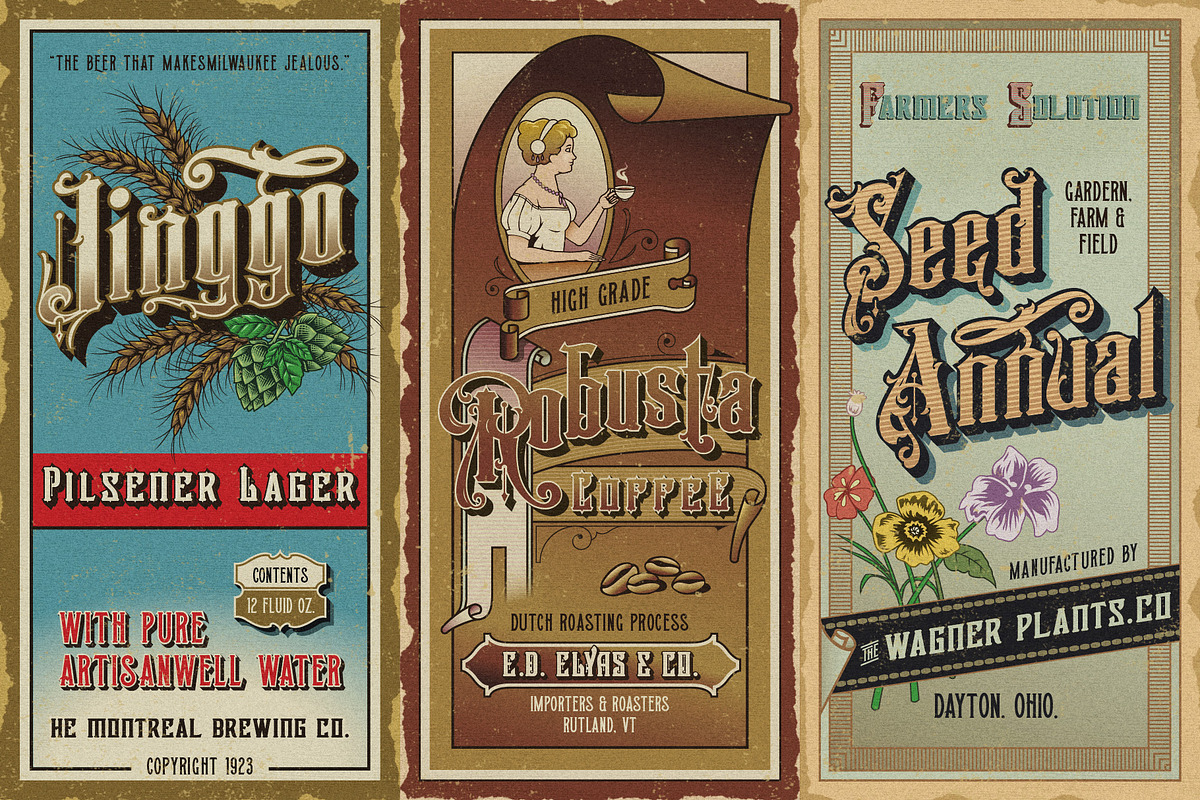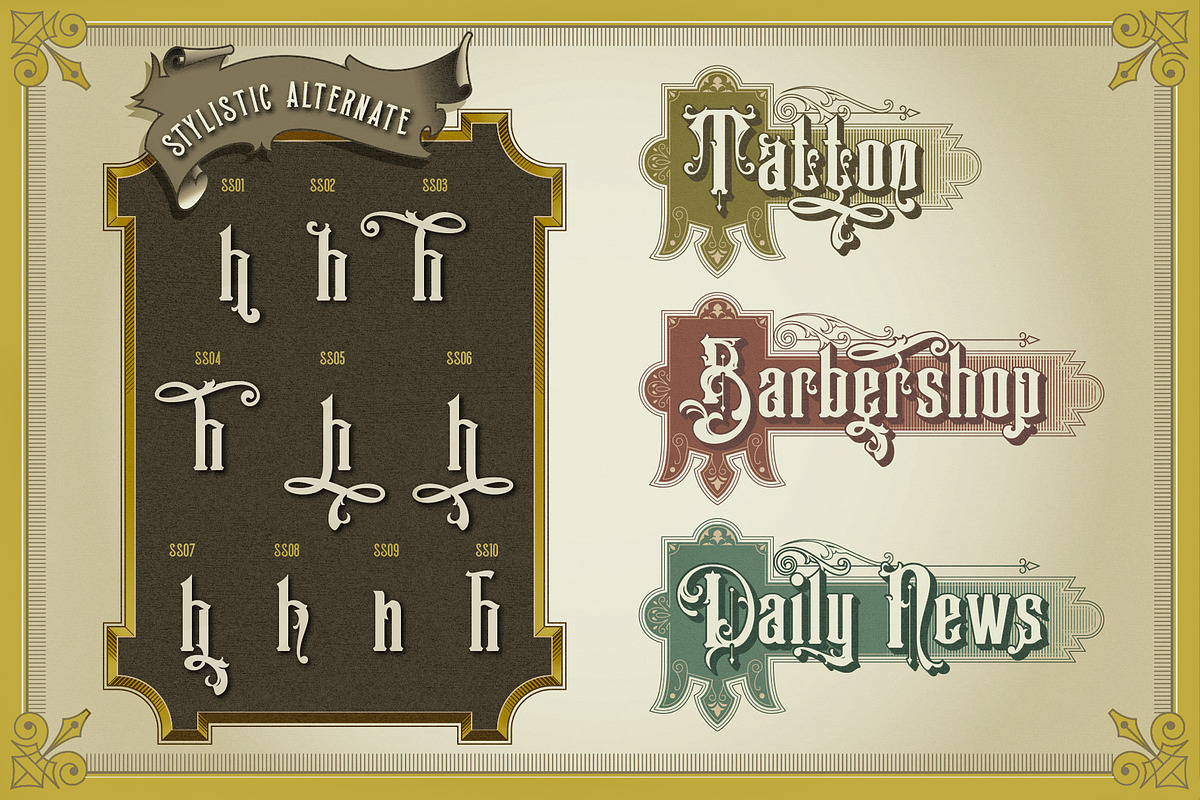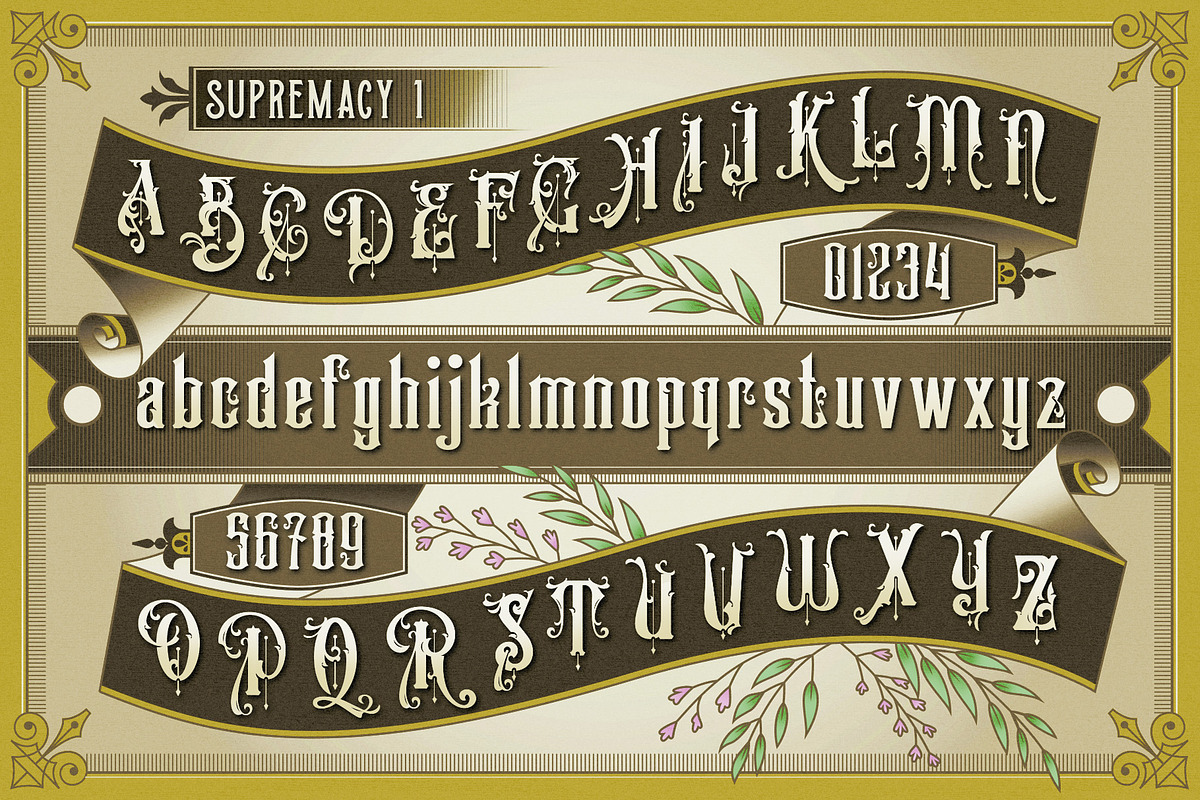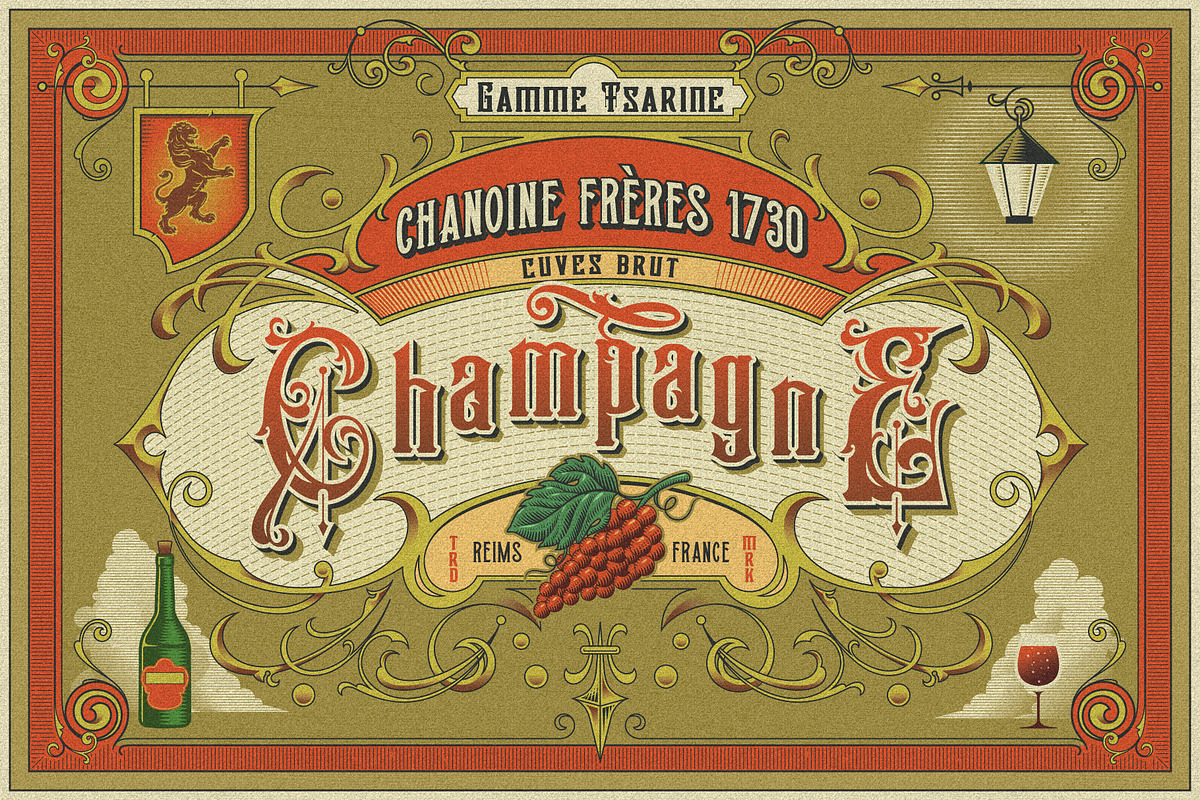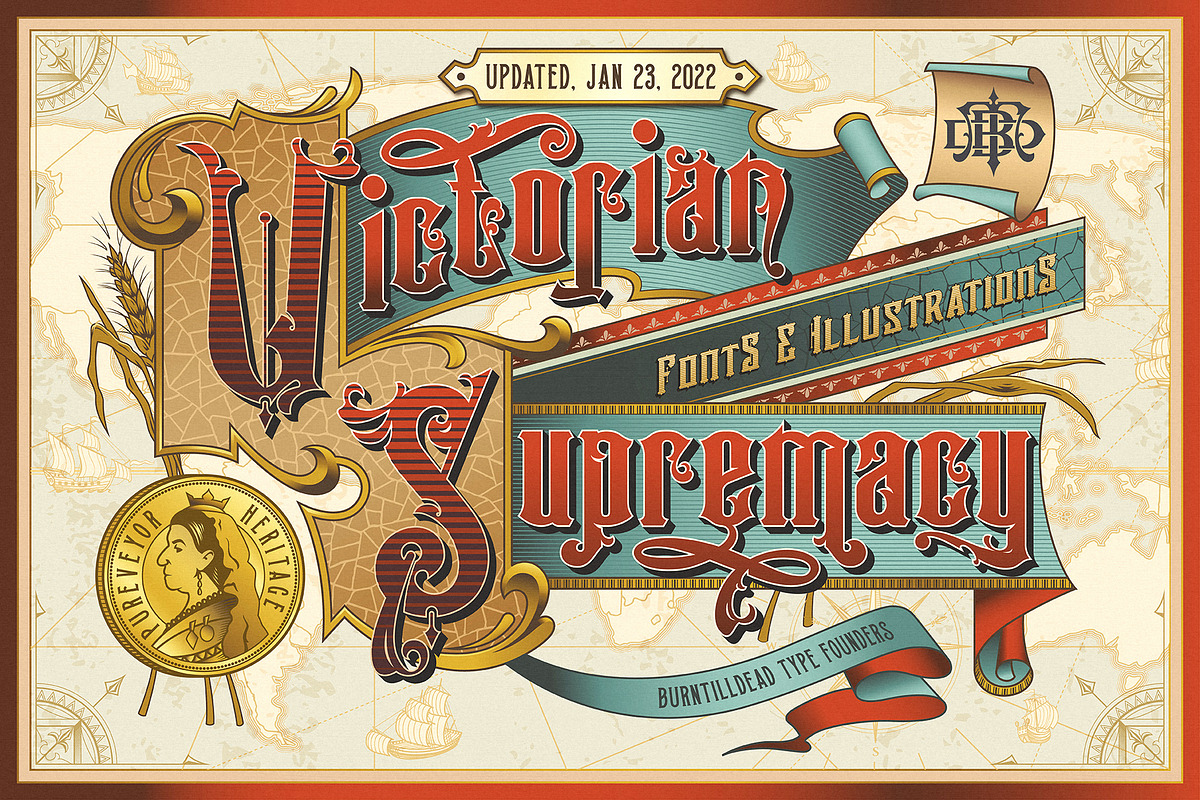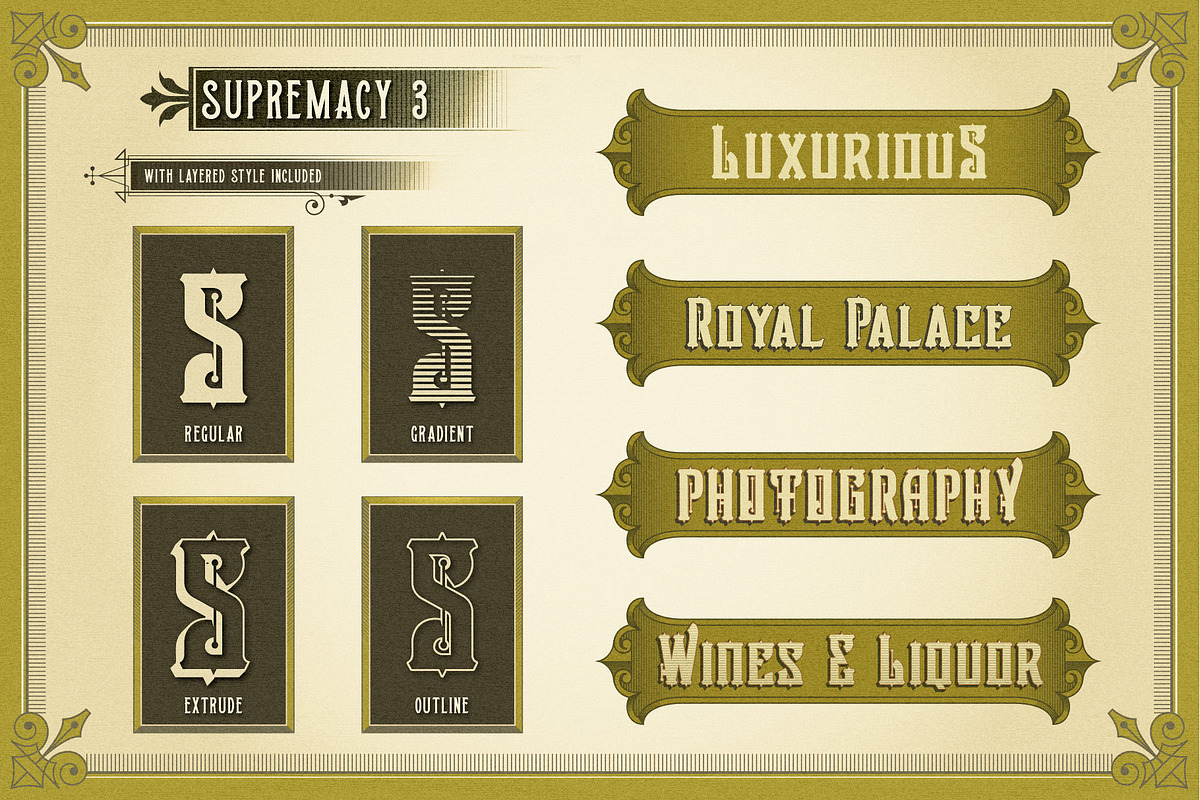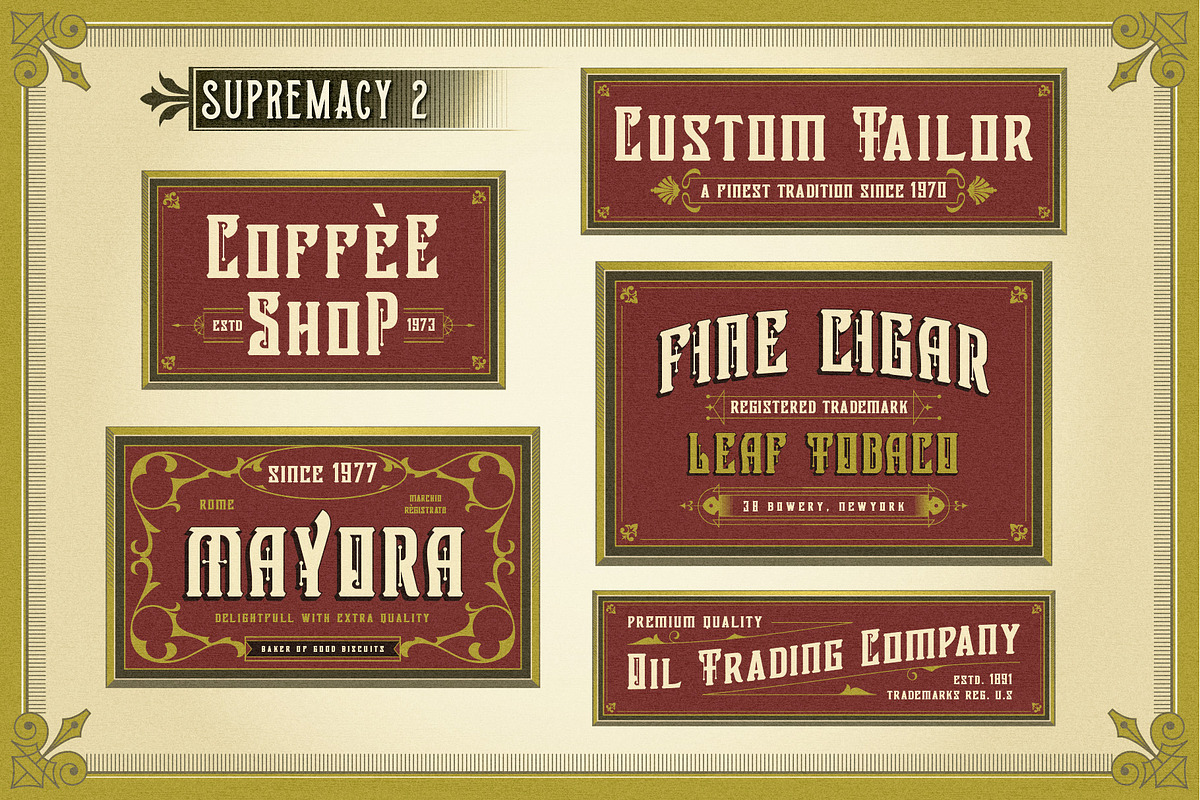
Victorian Supremacy
With over a year of design and development, Victorian Supremacy is ready to help you and your clients make a statement by adding elegance and unique flair to your next design project.
Victorian Supremacy inspired by letterheads from the late 1800's and early 1900's. Set includes four major styles and layered version (gradient, outline & extrude).
Victorian Supremacy offers an expansive set of options, making it the perfect choice for books, magazines, packaging, branding and signage. From period style and Victorian to modern and elegant, Victorian Supremacy is strong and stately, yet elegant and decorous.